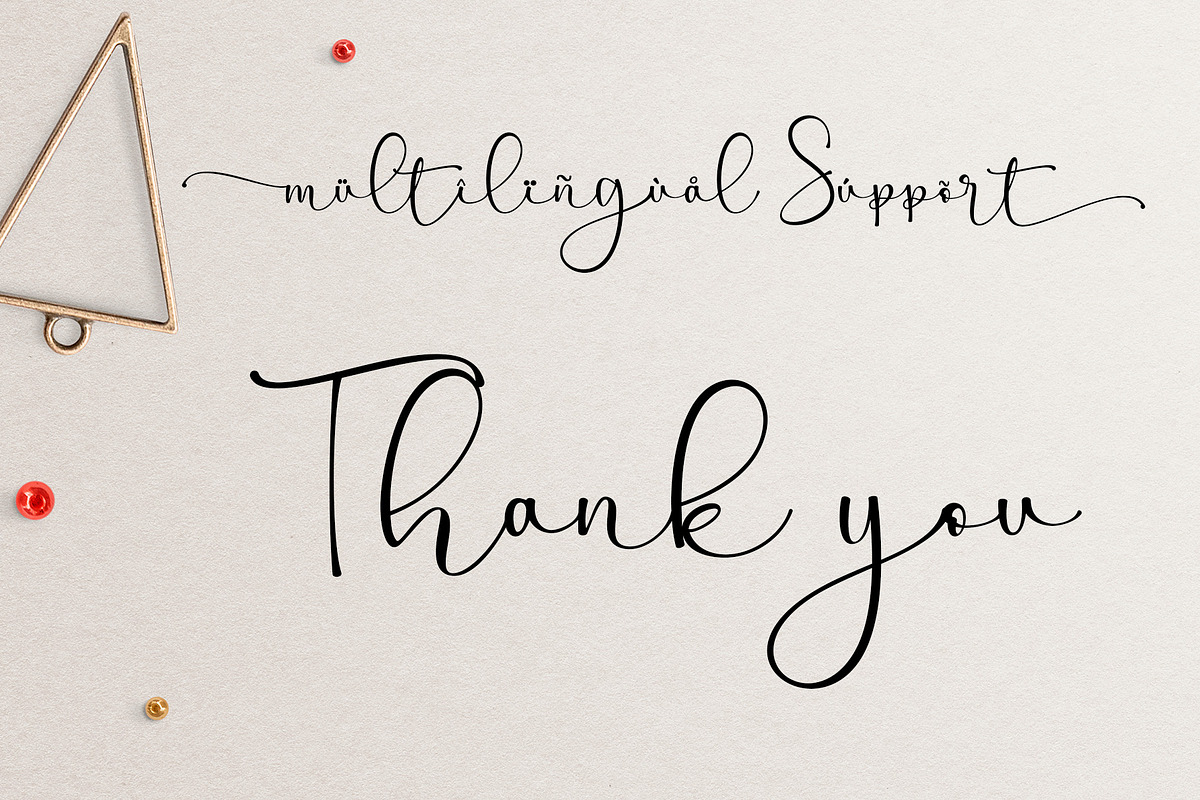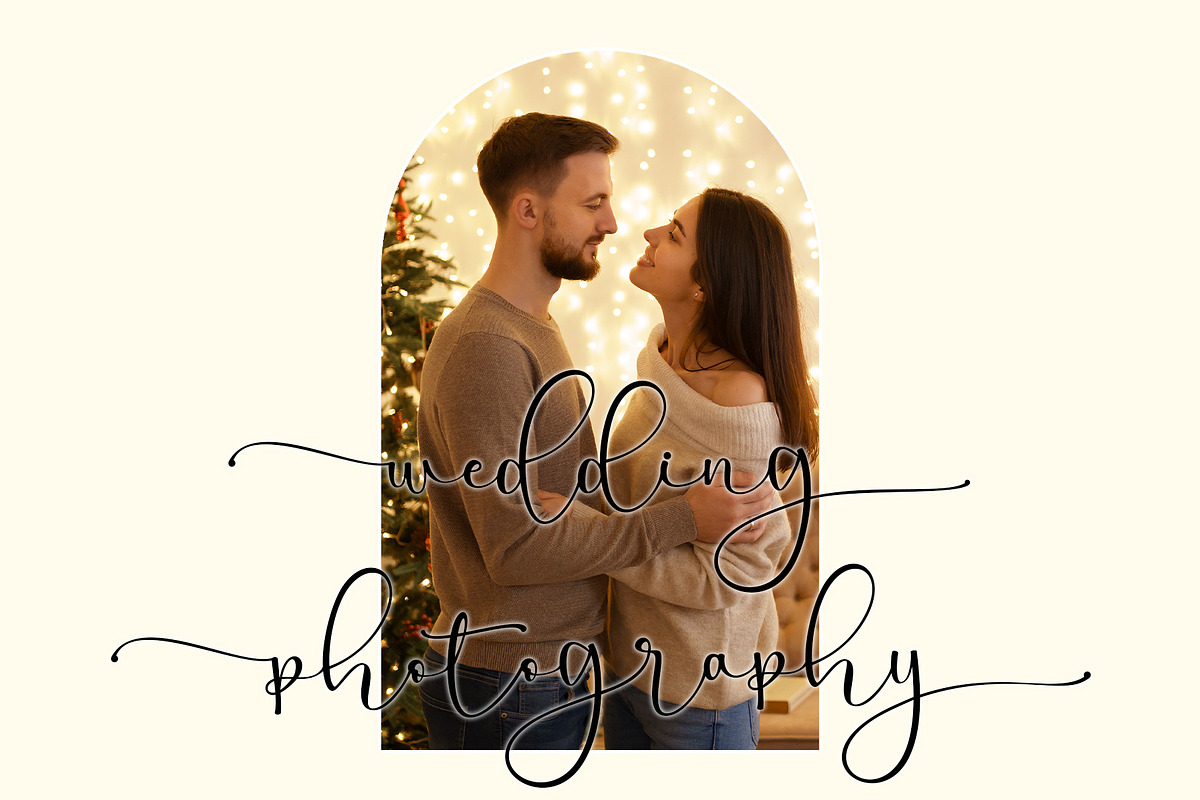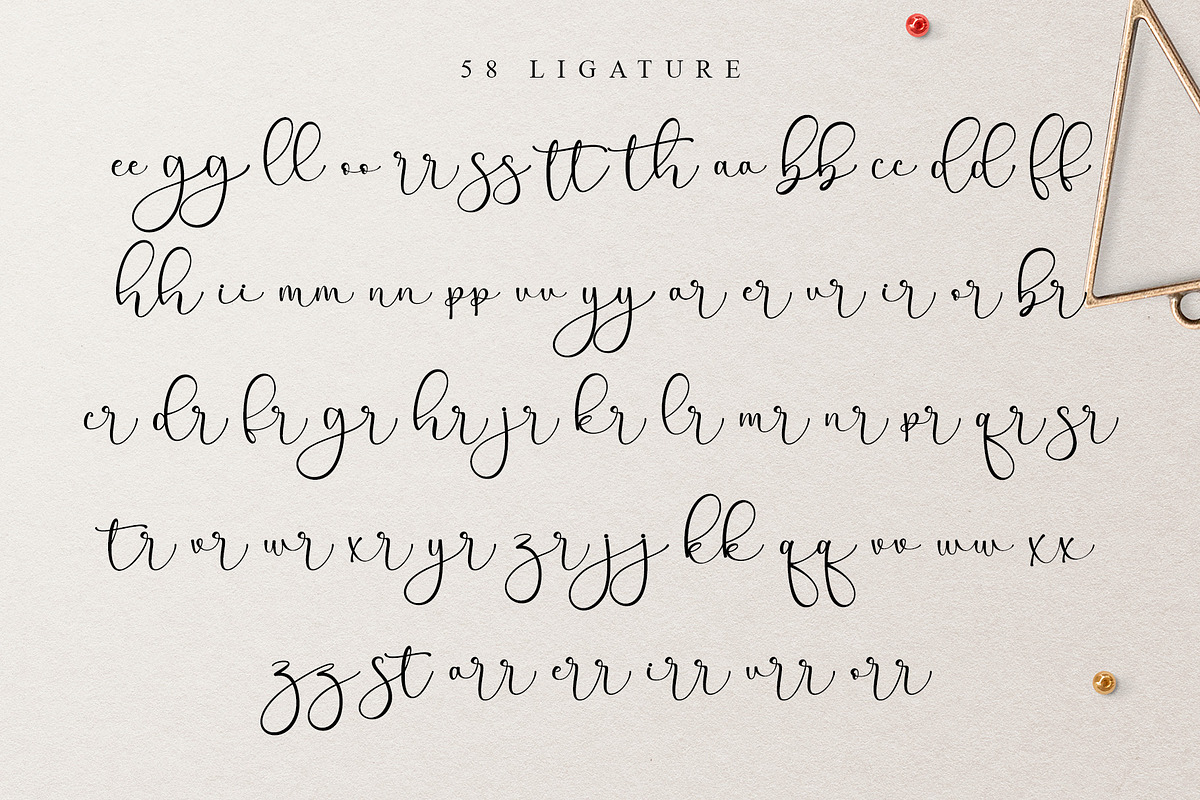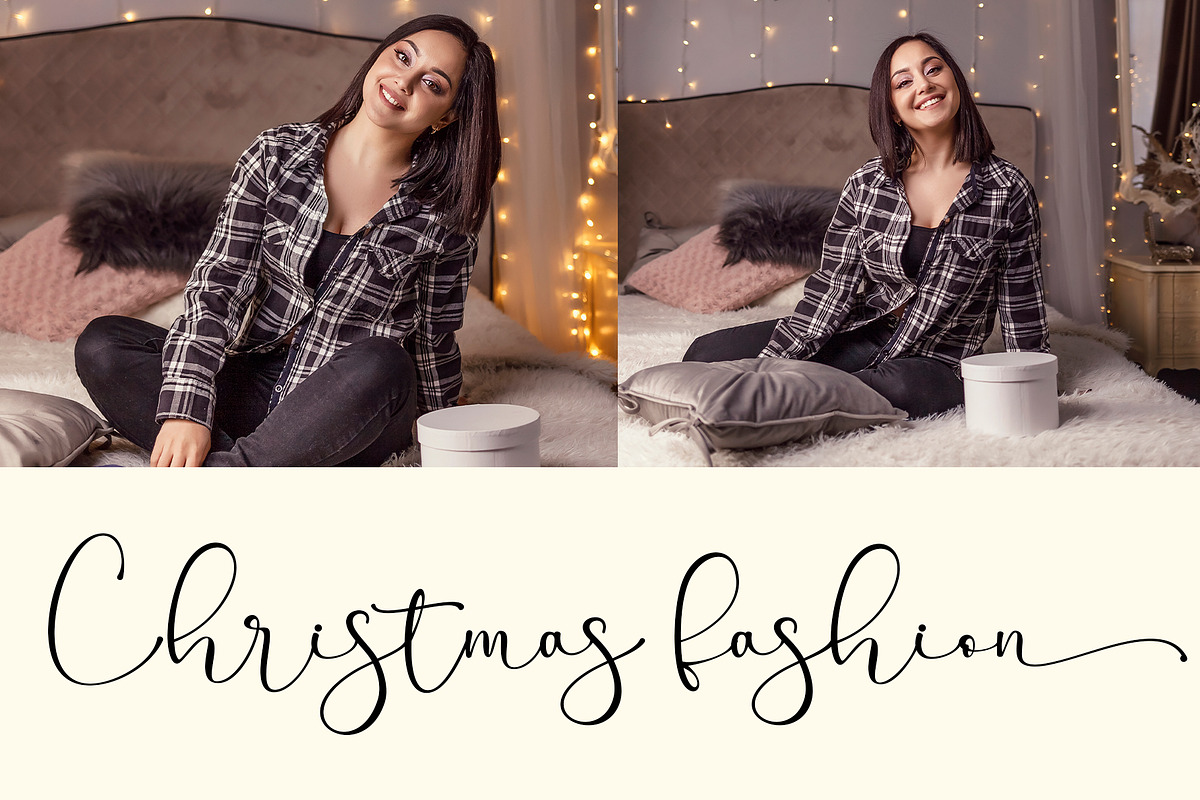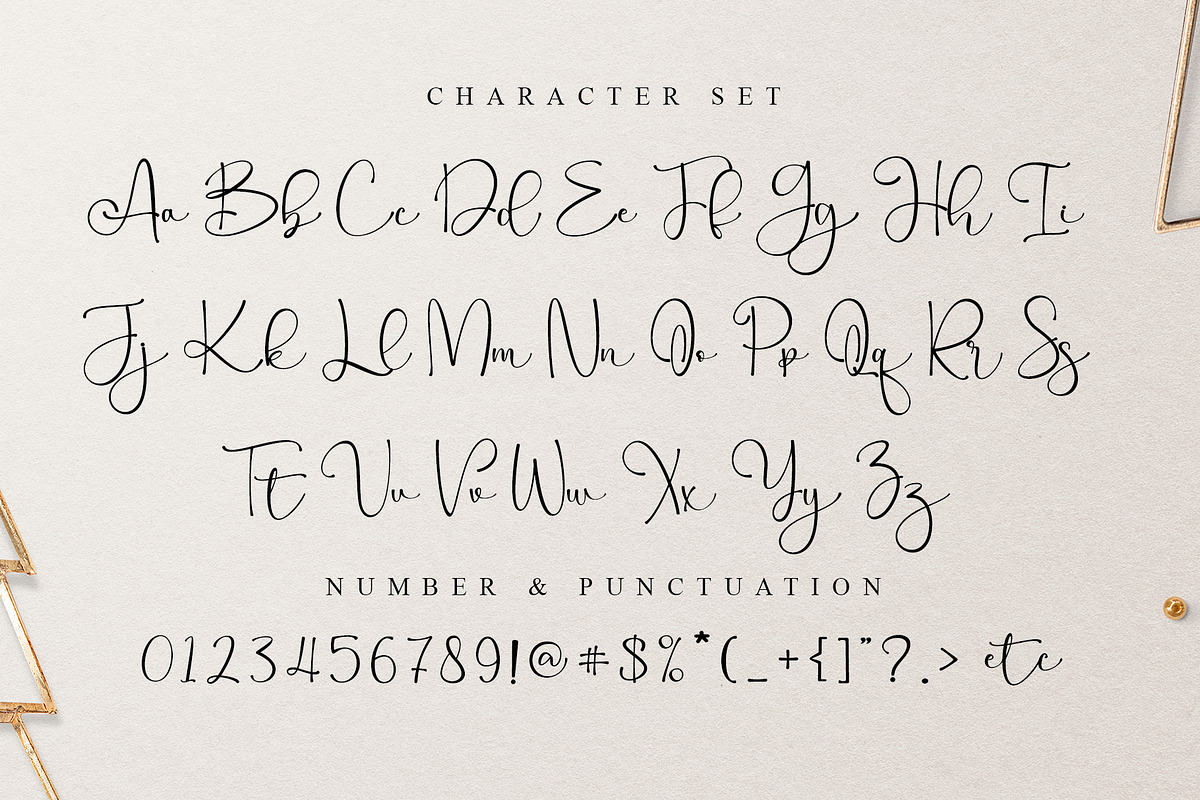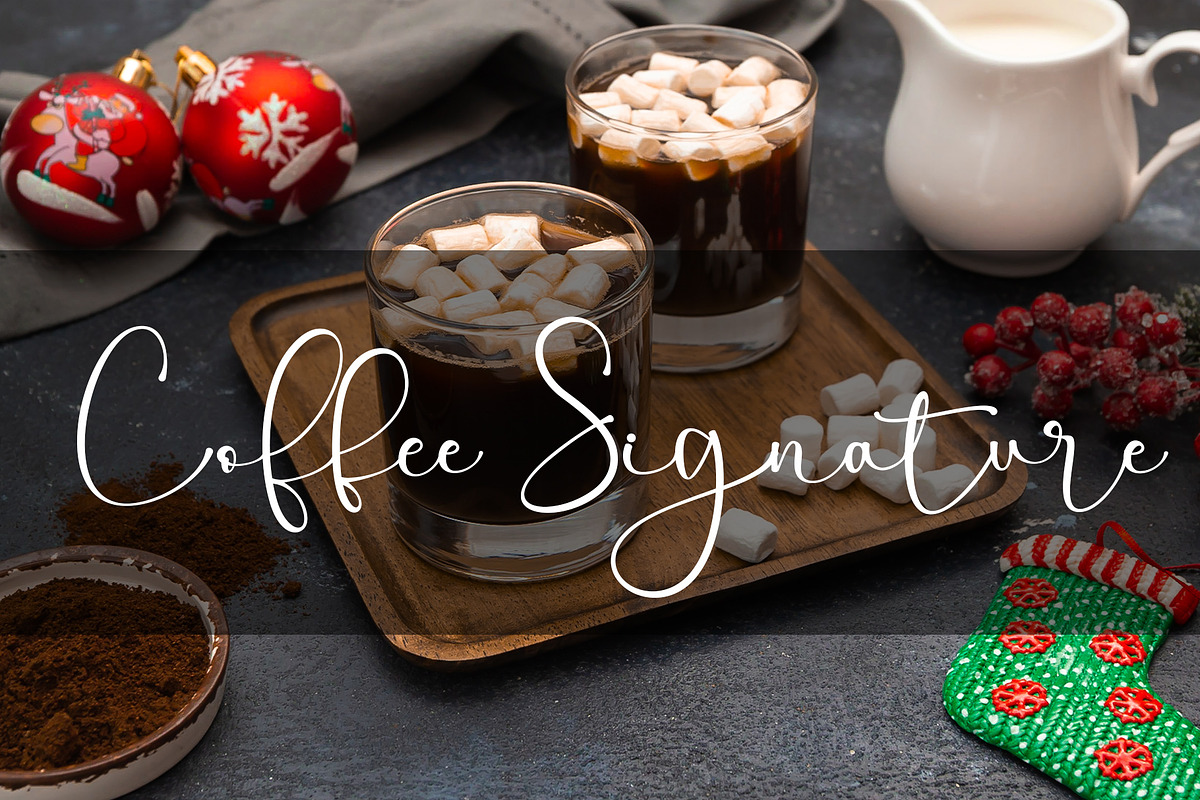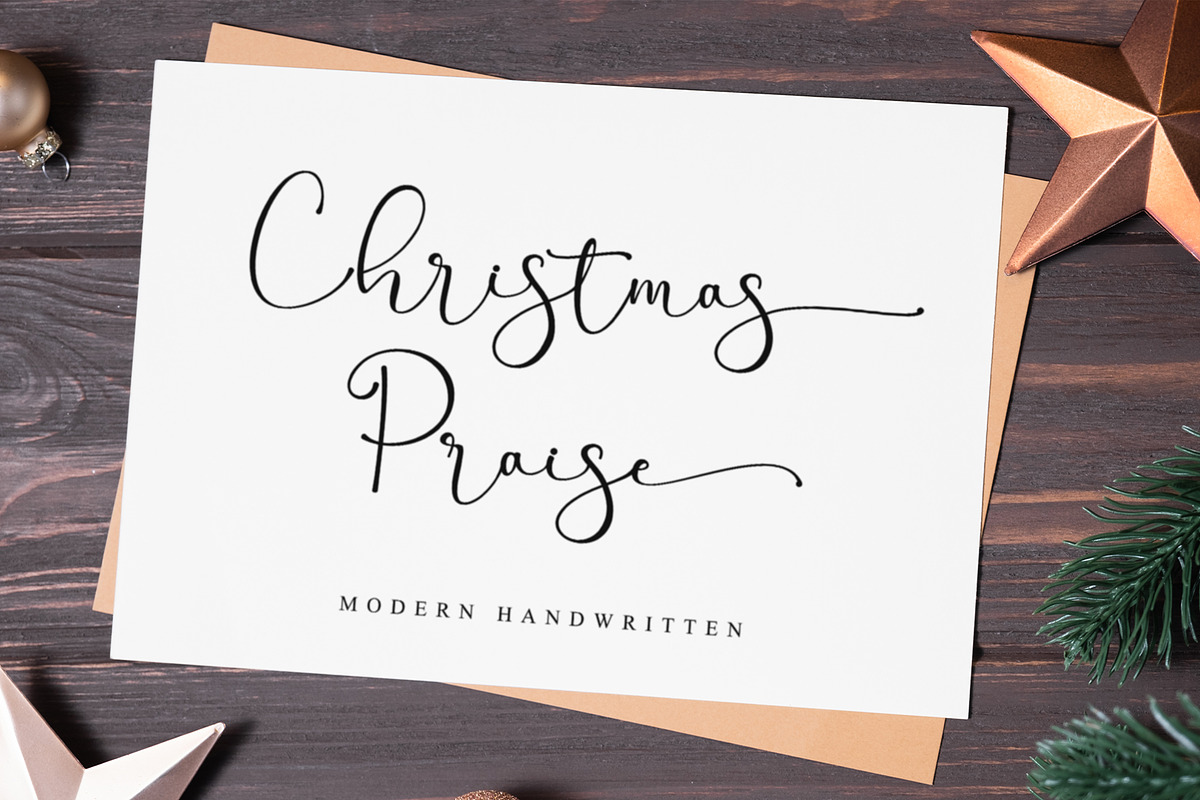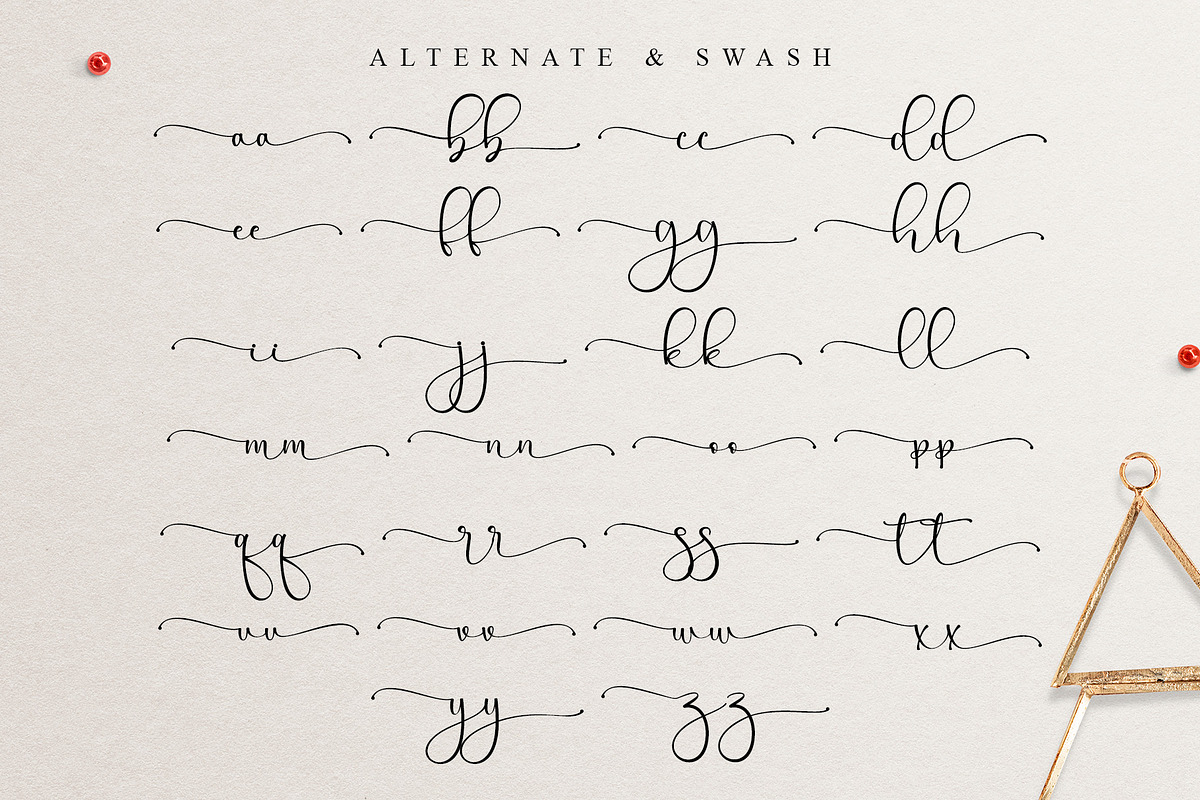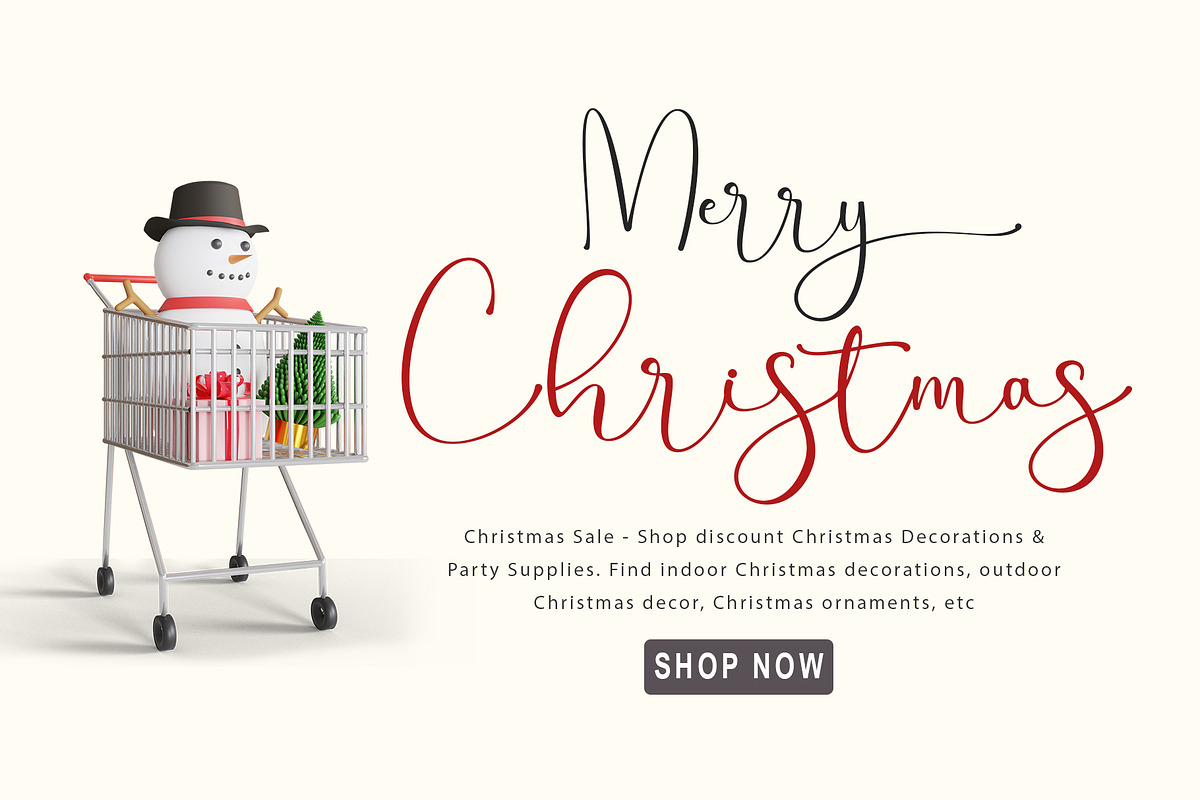
Christmas Praise
Christmas Praise is a Modern handwritten font with lots of authenticities!. It has beautiful and well-balanced characters and as a result, it matches a wide pool of designs. Add it to your most creative ideas and notice how it makes them come alive! This font is PUA encoded which means you can access all of the amazing glyphs and swashes with ease! It also features a wealth of special features including alternate glyphs and ligatures.
- Support multilingual; ä ö ü Ä Ö Ü ß ¿ ¡
- lowercase and uppercase letters
- Alternate, Swash & ligature